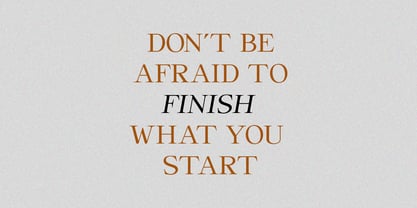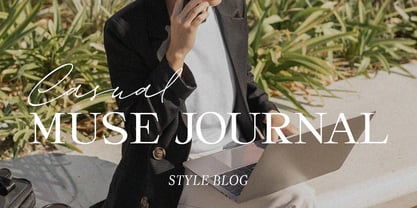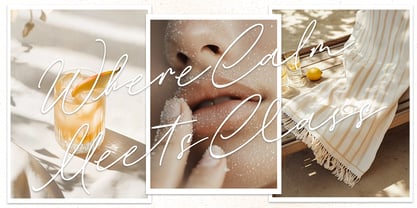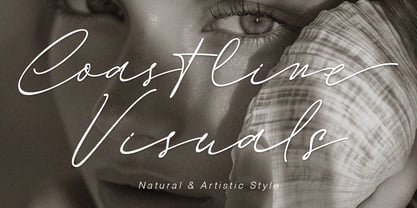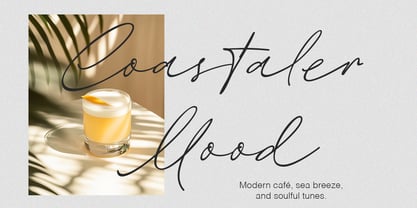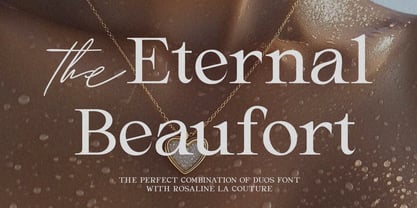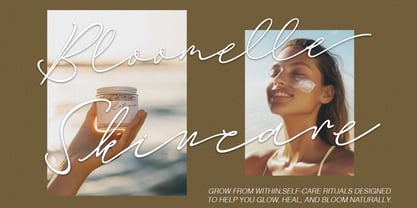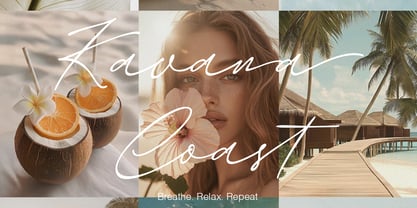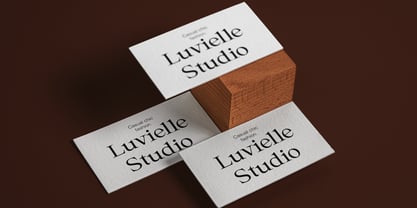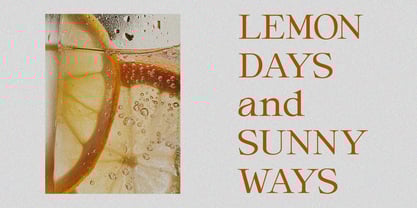
Rosaline La Couture Duo
by HKL Studio
The Rosaline La Couture Duo Font Family was designed by T Haikal Budillah and published by HKL Studio. Rosaline La Couture Duo contains 2 styles and family package options.
Rosaline La Couture – Signature & Serif Font Duo Rosaline La Couture is an elegant font duo that beautifully blends modern sophistication with timeless charm. The Rosaline Signature font showcases a graceful handwritten style — soft, feminine, and effortlessly luxurious. Each curve flows naturally, adding a personal and artistic touch to any design. Paired with Rosaline Serif, a classic and refined typeface with balanced proportions and a strong presence, the combination creates a perfect harmony between elegance and structure. Together, they deliver a refined, couture-inspired look ideal for fashion branding, wedding invitations, boutique logos, packaging, and modern-vintage editorials. Rosaline La Couture is more than just a typeface — it’s a statement of grace, luxury, and timeless beauty.
Designers: T Haikal Budillah
Publisher: HKL Studio
Foundry: HKL Studio
Design Owner: HKL Studio